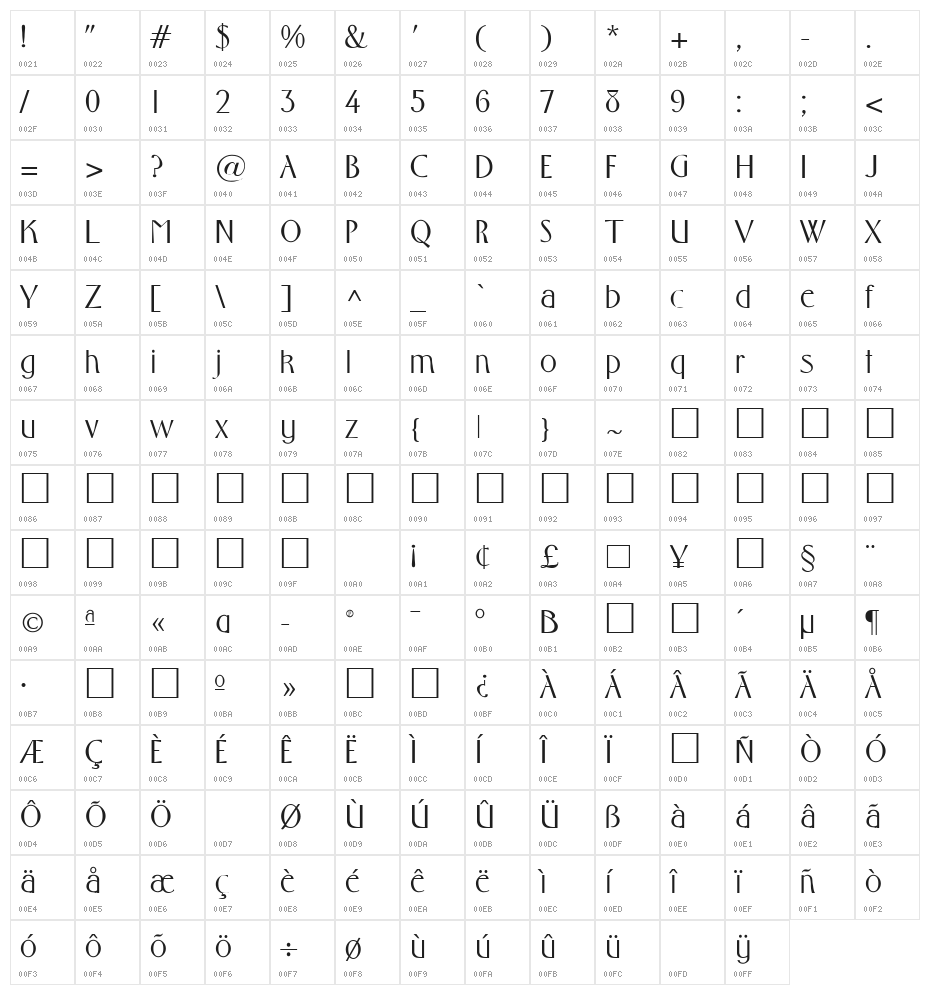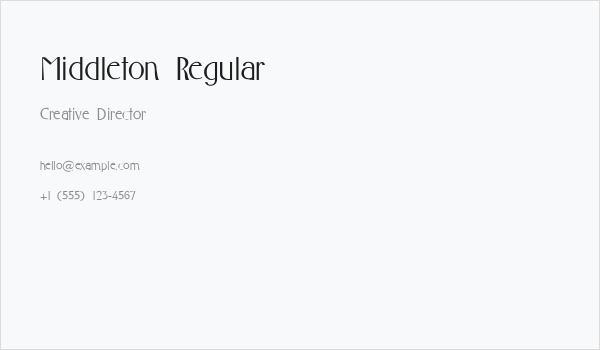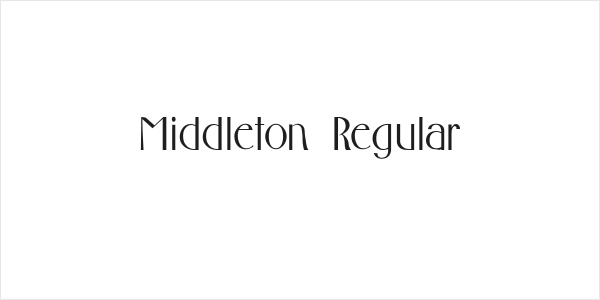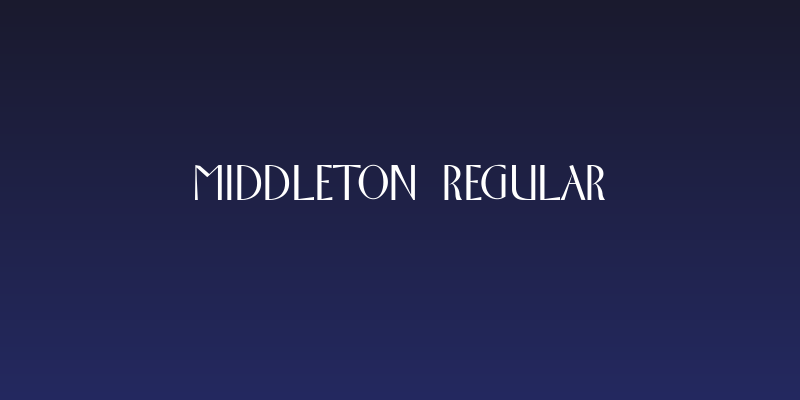
Middleton Regular Font
Middleton Regular Description
This font exhibits a unique blend of modern and classic styles, characterized by its elegant and slightly elongated letterforms. The uppercase letters are tall and narrow, with a subtle flair that adds a touch of sophistication. The lowercase letters maintain a consistent style, with smooth curves and a gentle slant that enhances readability. The numerals are distinct and well-proportioned, complementing the overall aesthetic. Special characters are thoughtfully designed, maintaining the font's cohesive look. This typeface is versatile, suitable for both digital and print media, offering a refined yet approachable appearance.
| Overall Style | Elegant and sophisticated |
| Proposed Projects | Ideal for branding, editorial design, invitations, and luxury product packaging. |